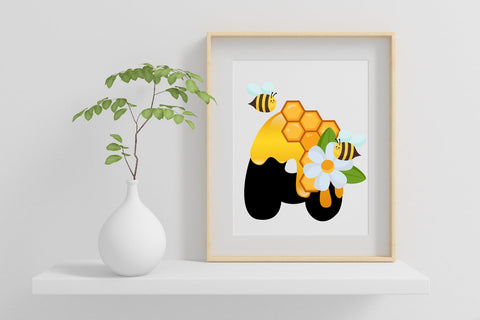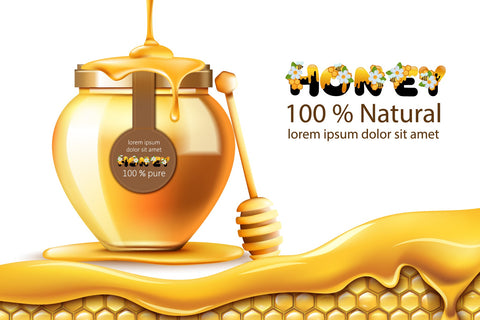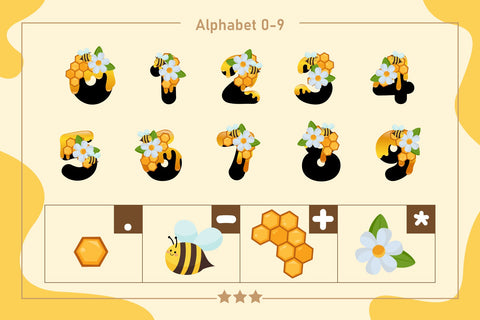
Honey Bee Color Fonts
Honey Bee Font is a meticulously designed color font. It's cute, fresh, and fun. suitable for use in any topic that makes it stand out. Fall in love with its authentic feel and use it to create gorgeous invitations, beautiful stationary art, eye-catching social media posts, and cute greeting cards. Add this beautiful font to each of your creative ideas, and notice how it makes them stand out.